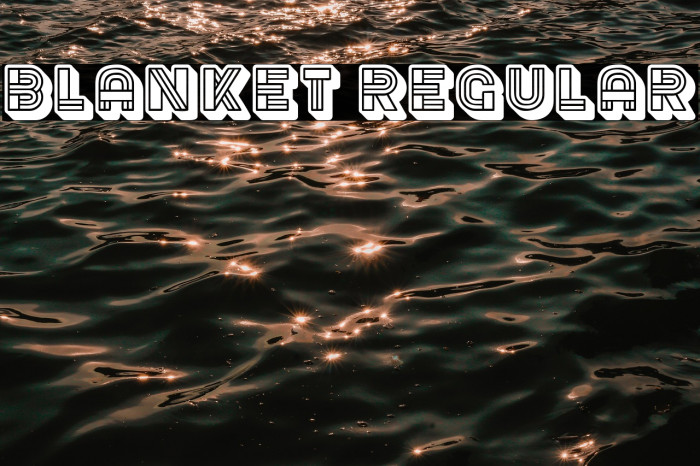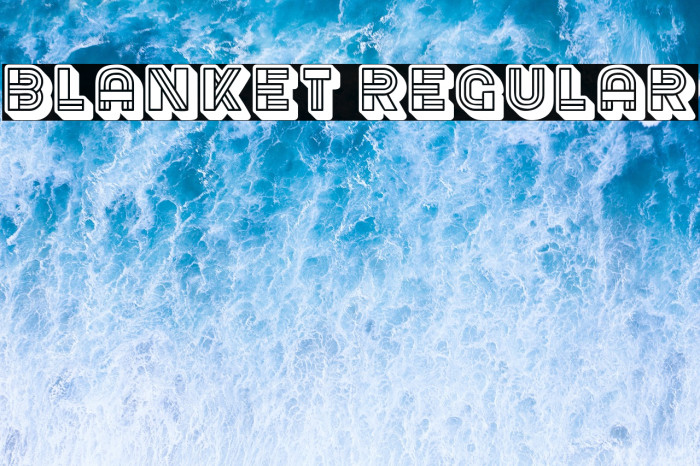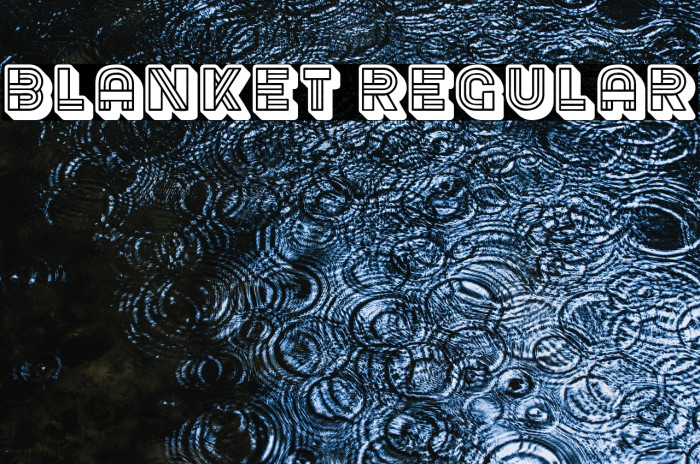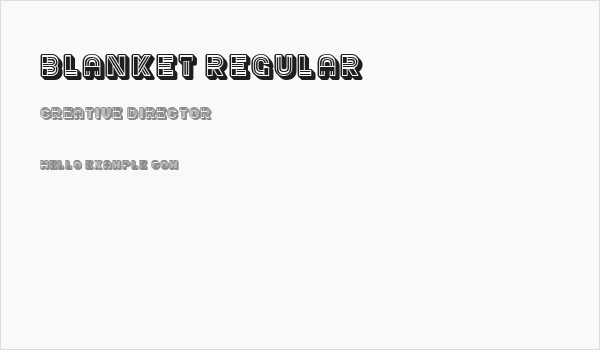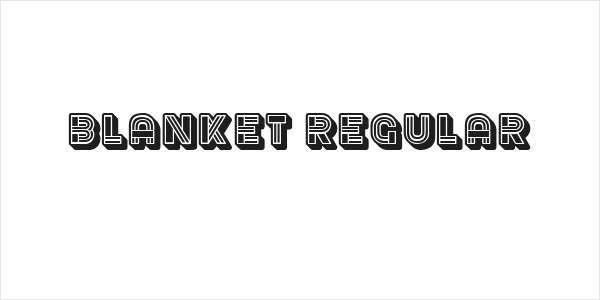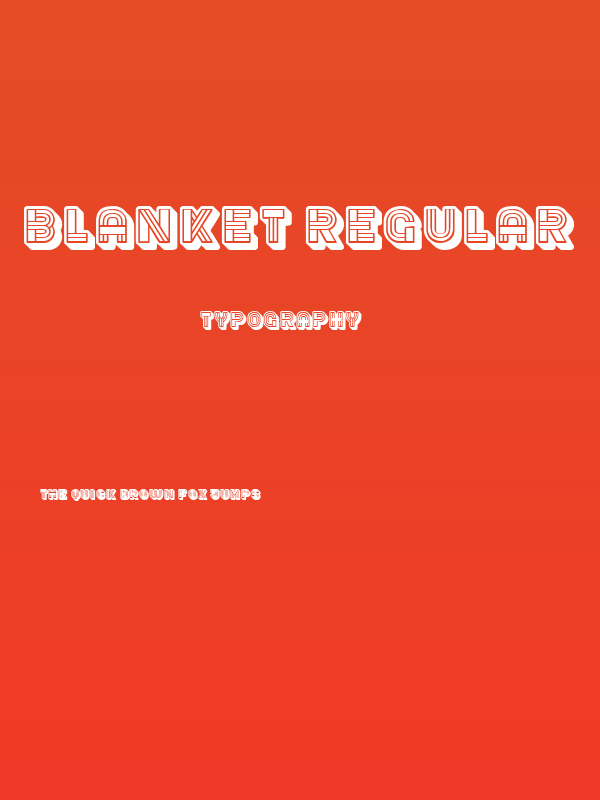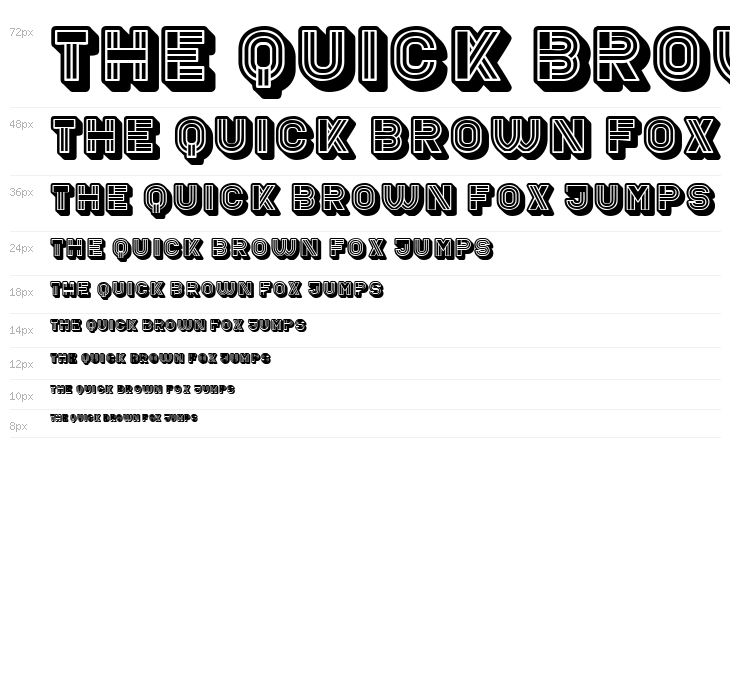
Blanket Regular Font
Blanket Regular Description
This font features a bold, decorative style with a three-dimensional effect created by layered lines and shadows. The uppercase letters are designed with a strong geometric structure, giving them a striking and impactful appearance. The use of thick outlines and inner lines creates a sense of depth and complexity, making it ideal for eye-catching designs. The font's playful yet structured form makes it suitable for modern and creative projects. Its unique style is reminiscent of retro and vintage aesthetics, yet it maintains a contemporary feel. The font's boldness and intricate design make it stand out, perfect for making a statement in any design context.
| Proposed Projects | Ideal for posters, logos, headlines, and branding projects that require a bold and creative touch. |